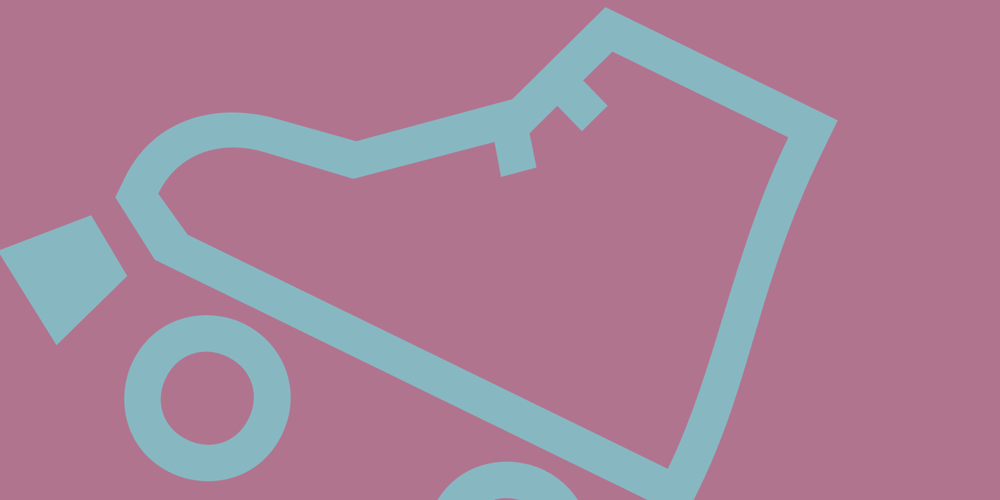
FF Info Pict Font Family was designed by Ole Schäfer, Erik Spiekermann and published by FontFont. FF Info Pict contains 8 styles and family package options. Erik Spiekermann, working in collaboration with Ole Schäfer, originally designed FF Info® Display for use in the context of wayfinding systems. The variants FF Info™ Text and FF Info™ Correspondence were developed later for text setting and office communication. FF Info DisplayThe sober and clear forms of the sans serif FF Info Display have been deliberately molded to make them perfect for use on wayfinding systems. The font by Ole Schäfer and Erik Spiekermann not only takes the problem of lack of space into account – it is some 15% narrower than comparable typefaces – the characters have also been designed to ensure they remain legible even in adverse conditions for reading. As text on signs often contains words with which readers are unfamiliar and which are thus deciphered letter for letter rather than perceived as whole words, it is essential to provide for a clear differentiation between glyphs. Additional serifs on the lowercase “i” and uppercase “I” and a small arch on the terminal of the lowercase “l” ensure that it is possible to readily discriminate between these particularly problematic letters. Moreover, sharp corners on glyphs can also make it difficult to read signs with backlighting or when driving past. The rounded corners of FF Info Display counteract this effect and make sure that the character forms remain well defined.FF Info Display is available in five carefully coordinated weights, from Regular to Bold. In the corresponding italic variants, the letters appear overall more rounded while the lowercase “a” has a closed form and the “f” has a descender. Also included among the glyphs of FF Info Display are several ligatures and arrow symbols. Pictograms with different themes that complement the typeface are also available in four weights.FF Info TextThanks to his know-how gained through designing other typefaces, Erik Spiekermann became aware that fonts created for use in problematic environments can be used in many different situations. In smaller point sizes, FF Info Display cuts a fine figure when used to set longer texts. So Spiekermann carefully reworked FF Info Display to produce FF Info Text, a font perfected for use in this context. Not only can the characters be more generously proportioned, certain features, such as additional serifs to aid with the differentiation of problematic letters, are also no longer necessary in textual surroundings. The upright styles have a double-story “g” while Spiekermann has added oldstyle figures and small caps.FF Info Correspondence has also been designed for setting block text although it recalls the style of old typewriter characters and is specifically intended for use in office communication. The characters of this third member of the family are thus more formal, without rounded terminals but with rectangular punctuation marks. The narrower letters are provided with large serifs to give them more space although, at the same time, this reduces the differences in terms of letter width among the alphabet. In contrast with its two siblings, FF Info Correspondence has only three weights, each with corresponding italic.The three styles of the FF Info super family cover an extensive range of potential applications. If the different kerning is adjusted manually, the three styles harmonize happily with each other and can be readily used in combination to set, for example, headlines and texts and also creative display options.